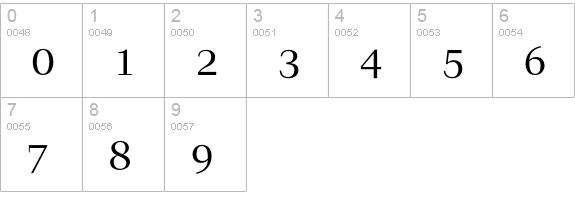
Interviewer-Regularly Font Details
The Interviewer-Regularly font is a unique and versatile typeface that is perfect for adding a touch of elegance and professionalism to any project. Its sleek and sophisticated design makes it ideal for a wide range of applications, from corporate branding to editorial layouts. What sets Interviewer-Regularly apart is not only its stunning aesthetics, but also the fact that it is freely available to download at FontsMarket.com. This means that designers and creatives can easily access and use this font without any cost, making it an incredibly valuable and accessible resource. With its clean lines and balanced proportions, Interviewer-Regularly is highly legible and easy on the eyes, ensuring that your message is conveyed clearly and effectively. Whether you're designing a website, creating a logo, or crafting a magazine spread, this font will effortlessly elevate your work to the next level of sophistication. The versatility of Interviewer-Regularly is also worth mentioning. It works seamlessly across various platforms, including both print and digital media. Its wide range of weights and styles allows for endless creativity and customization, ensuring that you can achieve the exact look and feel you desire for your project. In summary, Interviewer-Regularly is a must-have font for any designer or creative professional. Its sleek and elegant design, coupled with the fact that it is freely available to download at FontsMarket.com, makes it an invaluable resource. So why wait? Enhance your designs and make a lasting impression with Interviewer-Regularly today.